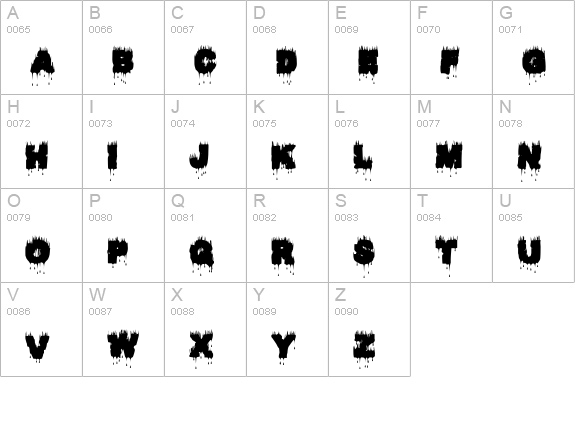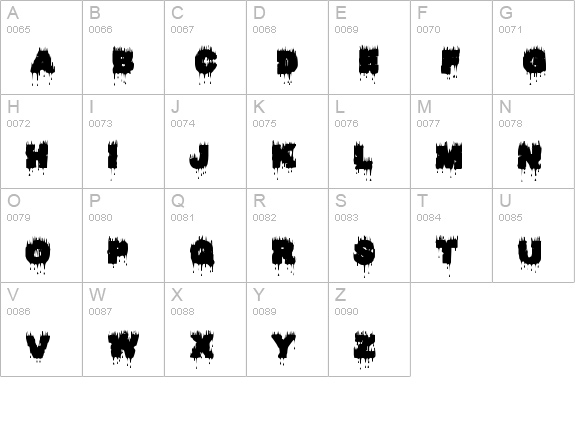
Raptor Kill Font Details
Raptor Kill font is an intense and bold typeface that exudes power and aggression. Its sharp edges and angular design reflect the ferocity and strength of a raptor, making it an ideal choice for projects that demand a strong impact. This font is perfect for creating attention-grabbing headlines, bold logos, or any design that requires a touch of fierceness. With its unique and eye-catching letterforms, Raptor Kill font is sure to leave a lasting impression on your audience. And the best part? Raptor Kill font is available for free download at FontsMarket.com! That's right, you can get your hands on this powerful typeface without spending a single penny. FontsMarket.com is a reputable source for high-quality free fonts, and Raptor Kill font is just one of the many amazing options available. Whether you're a graphic designer, a typographer, or simply someone who appreciates the art of typography, Raptor Kill font is a must-have in your collection. Its versatility and striking appearance make it suitable for a wide range of design projects, from websites and posters to merchandise and branding materials. So don't miss out on this incredible opportunity to enhance your designs with Raptor Kill font. Head over to FontsMarket.com and start exploring the vast selection of free fonts today.